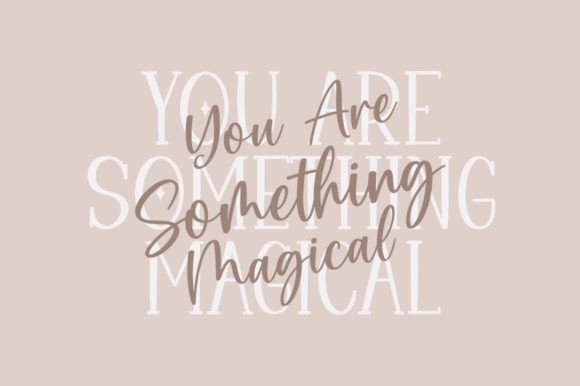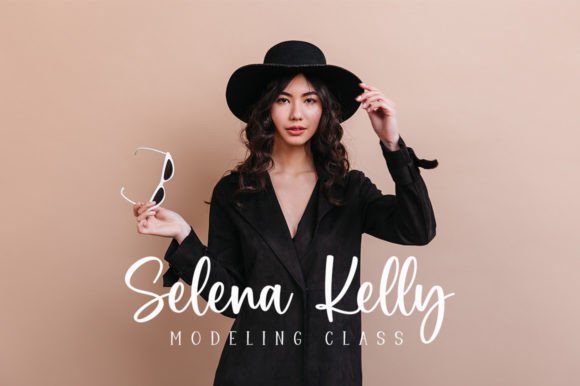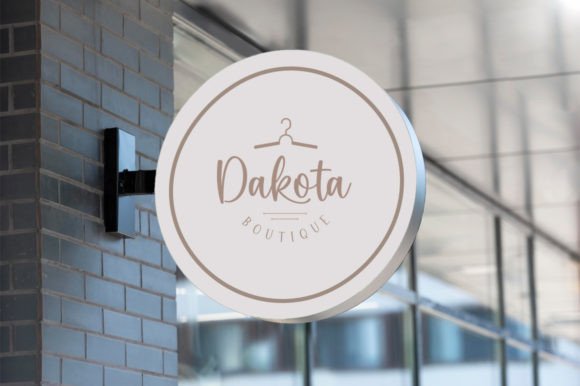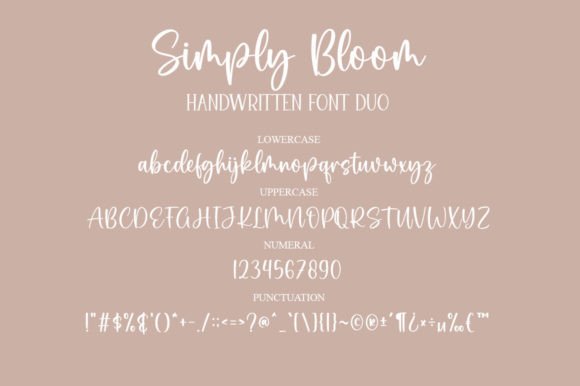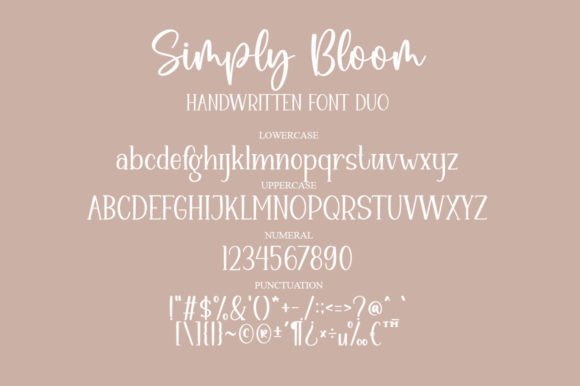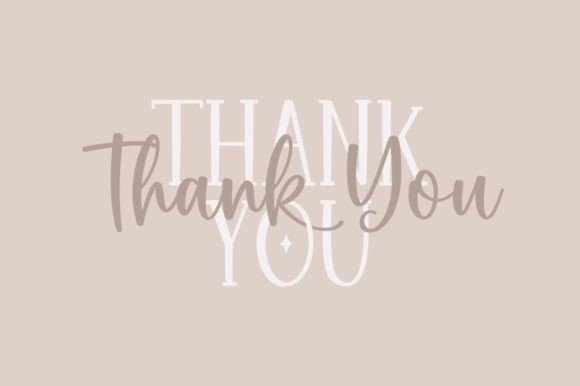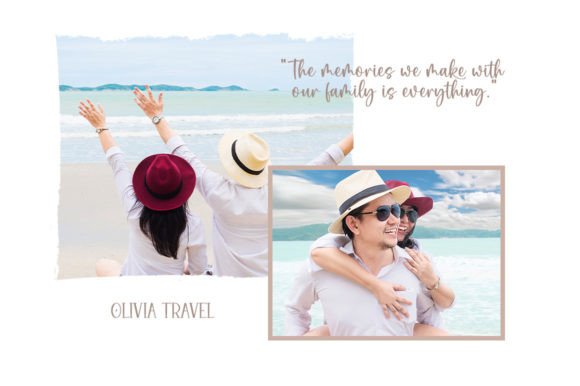
Simply Bloom Duo Font
About Simply Bloom Duo Font
Simply Bloom is a versatile font duo crafted to complement each other seamlessly, providing a chic and cheery touch to your creative projects. Whether used together or individually, these fonts offer a harmonious combination that is ideal for a variety of crafts and design endeavors.
The inclusion of two fonts in the Simply Bloom set ensures a dynamic and well-coordinated design experience. This versatility allows you to experiment with different typographic elements to achieve the desired aesthetic in your projects. Whether you’re working on branding, crafts, or any creative venture, Simply Bloom provides the tools for a chic and stylish outcome.
The fonts in the Simply Bloom duo are PUA encoded, providing easy access to all glyphs and swashes. This feature enhances the usability of the fonts, allowing you to personalize and customize your designs effortlessly. The availability of swashes adds an extra layer of creativity, enabling you to create unique and visually appealing text.
Whether applied to digital designs or print media, Simply Bloom maintains its chic and cheery qualities, making it suitable for a range of applications. From branding to crafts, this font duo is designed to bring a delightful touch to your creative endeavors.
In summary, Simply Bloom is more than just a font; it’s a versatile design asset that adds a chic and cheery touch to your crafts. Let Simply Bloom be the choice that enhances your branding, crafts, and various creative projects, making them stand out with a stylish and delightful flair.